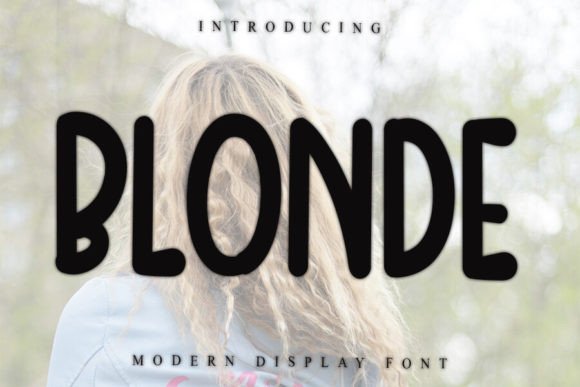
The Sweet Spot: Discovering the Charm of Blonde Font
I’ll never forget the moment I stumbled upon Blonde Font while working on a whimsical craft project for a client. I was on a mission to find the perfect handwritten font that would bring a touch of warmth and friendliness to the design. As I scrolled through my font library, Blonde caught my eye, and I knew I had found the one. Its natural, unique style seemed to scream “crafty” and “approachable,” making it an instant favorite.
So, what makes Blonde Font so special? Let’s dive into the good stuff:
- ✨ Sweet and Friendly: Blonde Font exudes a warm, inviting vibe that’s perfect for crafty projects, branding, and marketing materials.
- ✅ Versatile: Its unique style lends itself to a wide range of designs, from playful to sophisticated.
- 🌈 Colorful Personality: Blonde Font is perfect for designs that require a pop of personality and whimsy.
Now, let’s talk about a few quirks:
- 🤔 Limited Formality: Blonde Font is, by nature, a casual font. It might not be the best fit for super formal or corporate designs.
- ⚠️ Glyph Overload: With so many glyphs and stylistic alternates, it can be overwhelming to navigate the font menu.
The Story Behind Blonde Font
Blonde Font was created with the intention of crafting a friendly, approachable font that would bring a touch of warmth to designs. The designer aimed to create a font that felt like a handwritten note from a friend – sweet, inviting, and full of personality.
| Font Name | Blonde Font |
| What makes Blonde Font unique? | Blonde Font’s unique blend of natural, handwritten style and friendly personality sets it apart from other fonts. |
| Is Blonde Font suitable for body text? | While Blonde Font is beautiful, it’s best suited for headings, titles, and short paragraphs. Its unique style may not be ideal for lengthy body text. |